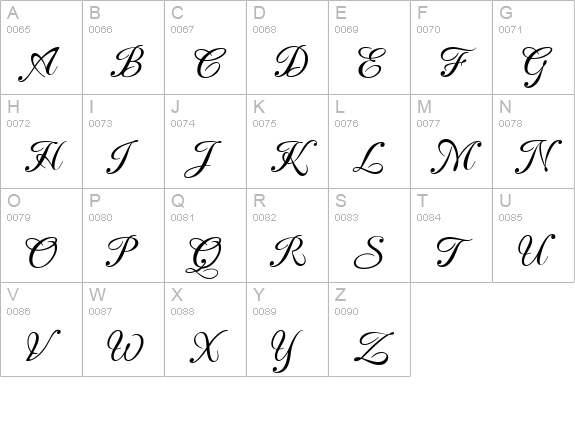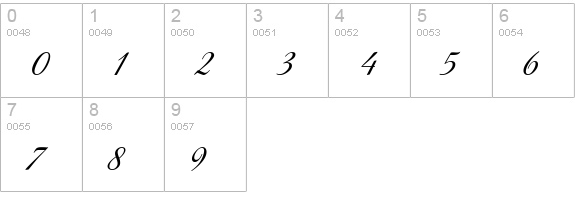
Carattere ROB Italic Font Details
Carattere ROB Italic is a distinctive, italic variant in the Carattere typeface family \xE2\x80\x94 well suited to design and typography projects.